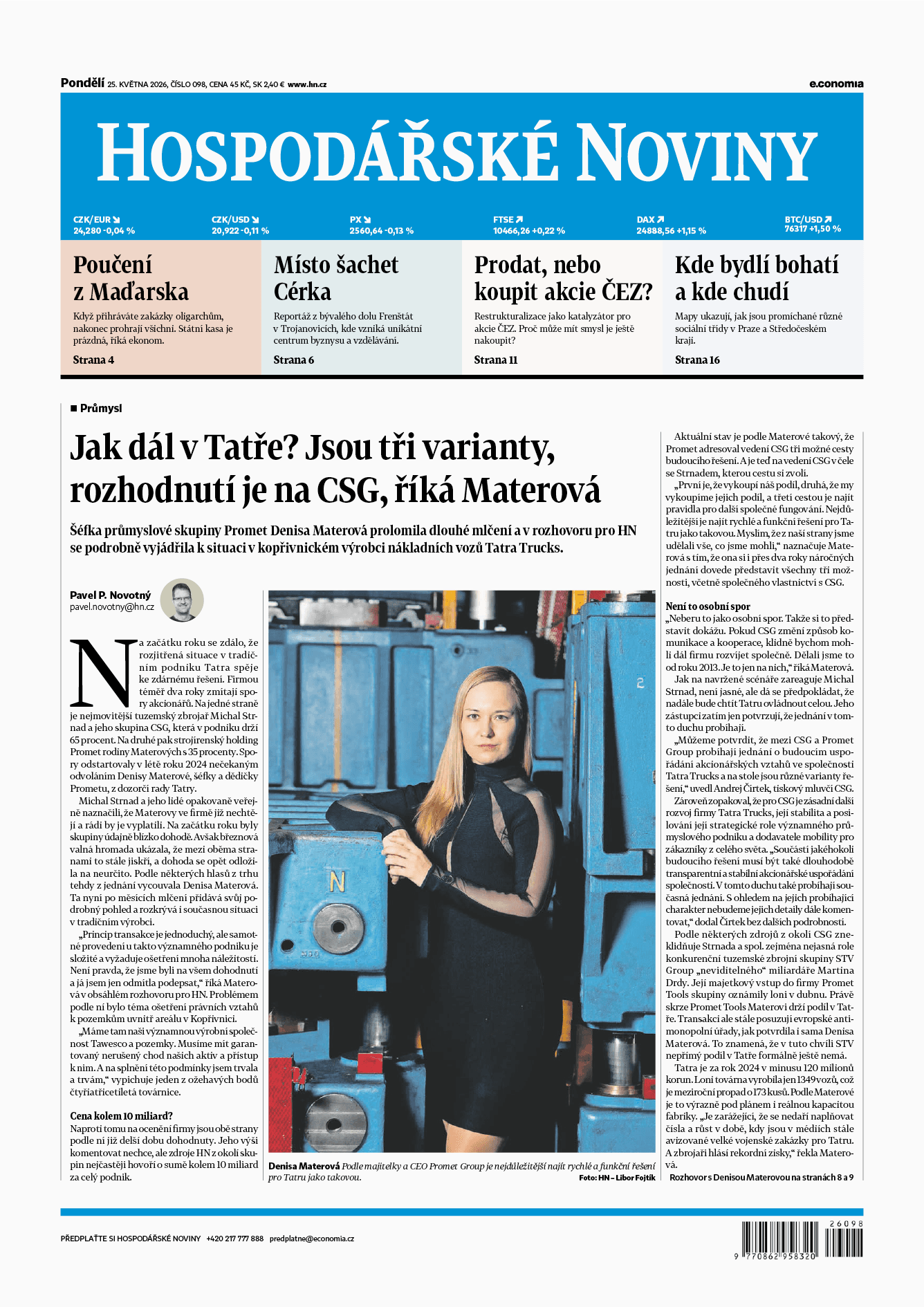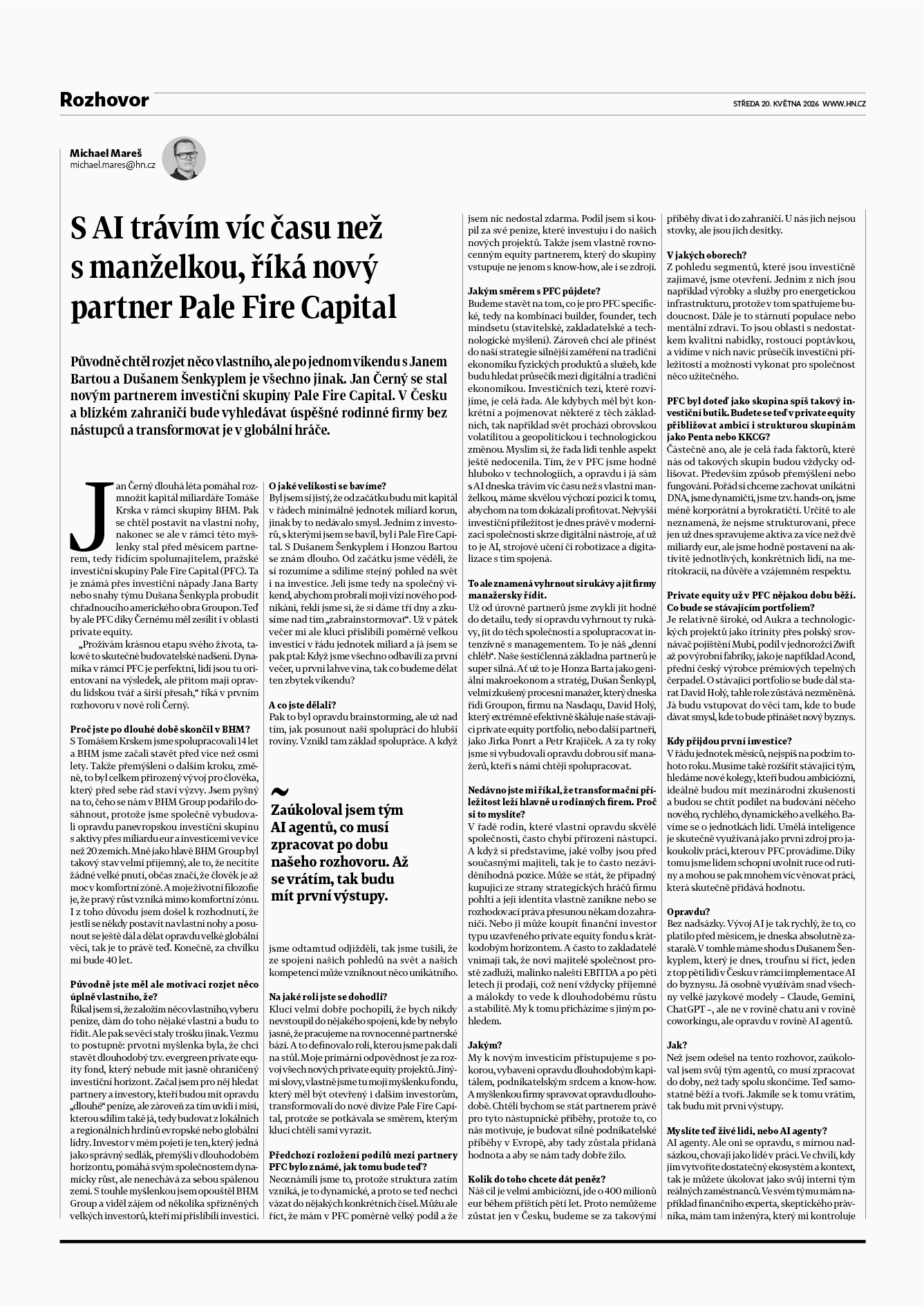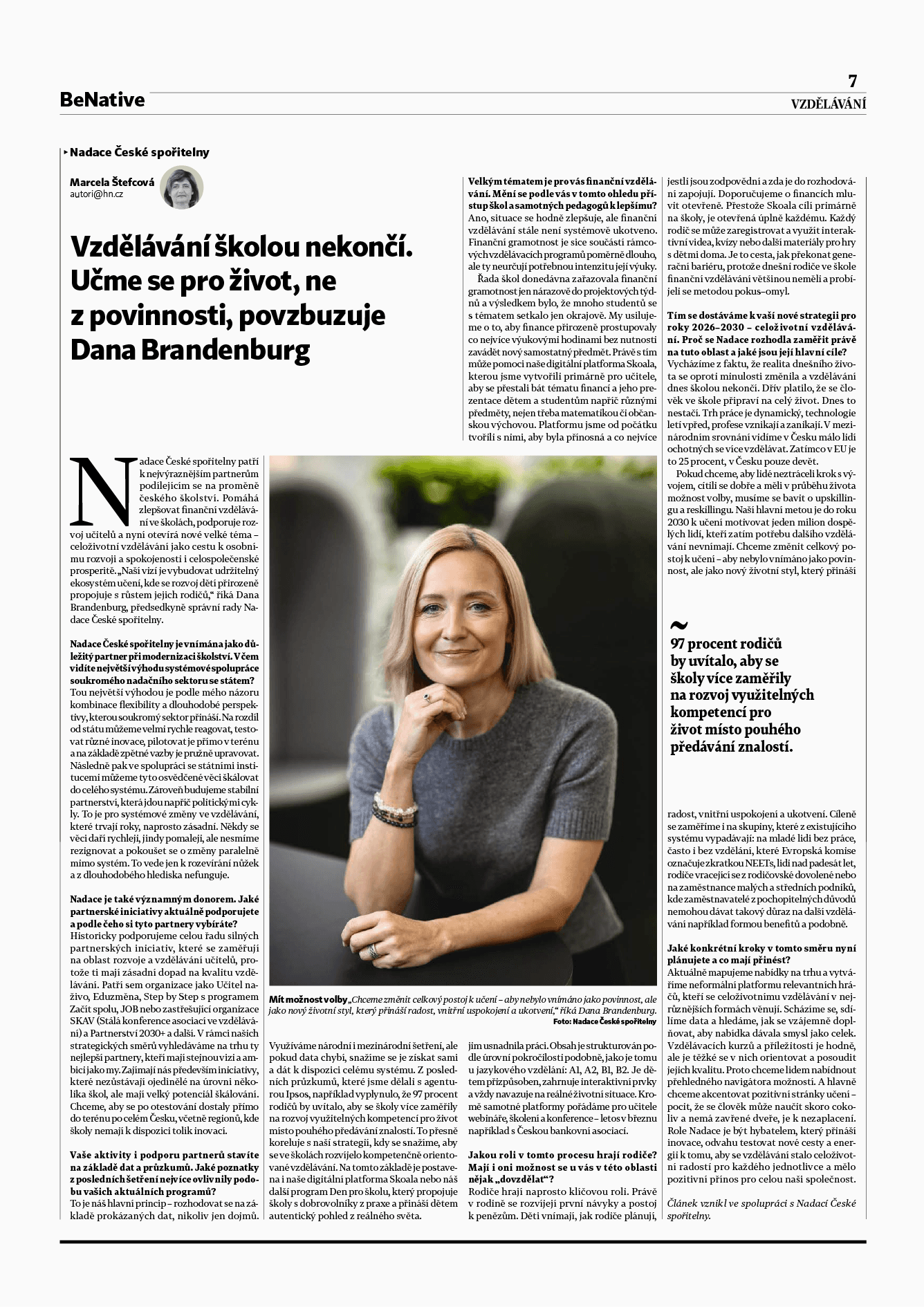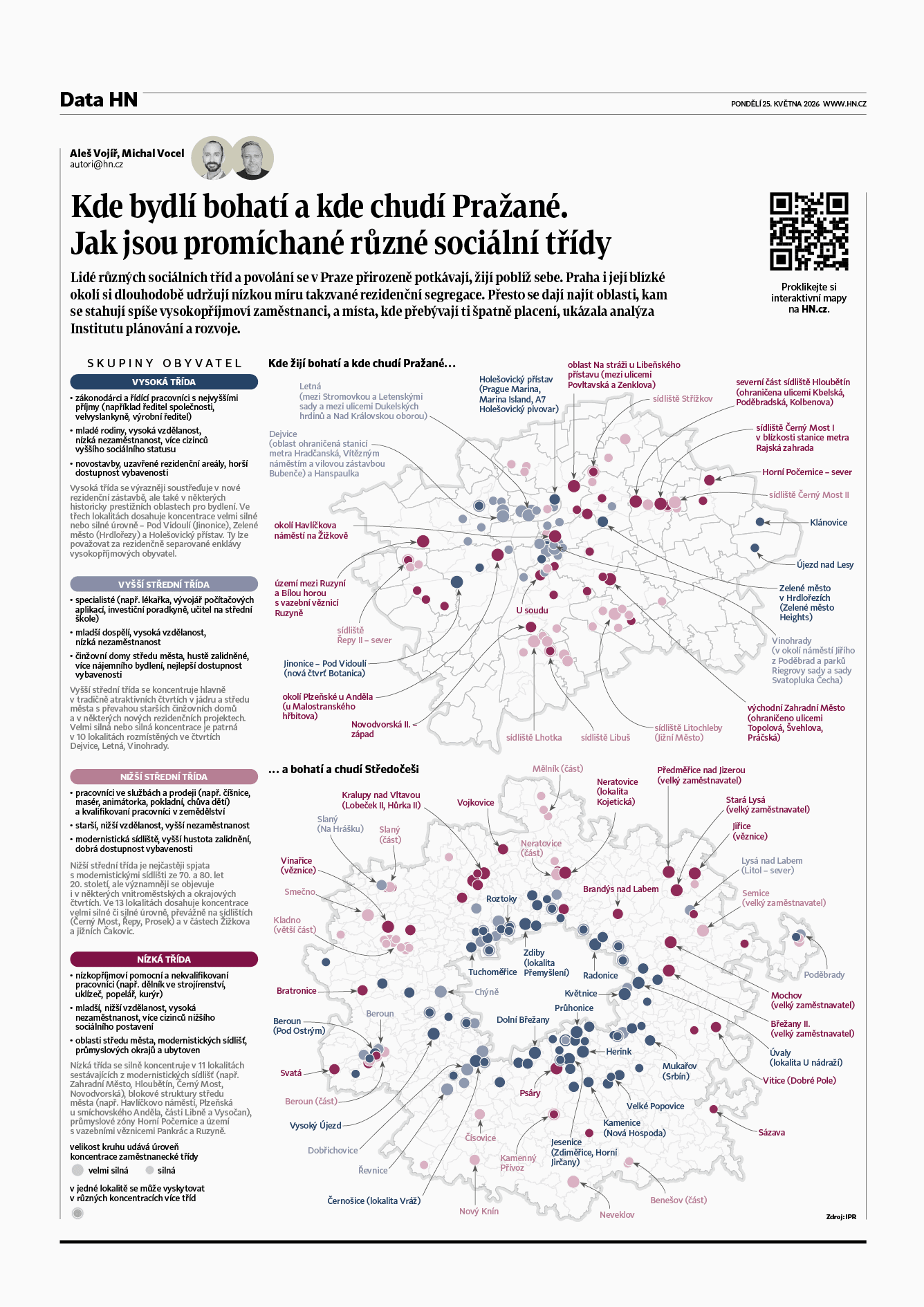
Tabac HN
Hospodářské noviny is a Czech daily newspaper focused on business, politics, finance, and current affairs. It is one of the country’s leading quality news outlets, read mainly by professionals, entrepreneurs, and economically engaged readers.
Based on a modification of the Tabac typeface, two custom condensed styles were developed to meet the demands of economical yet distinctive headline typography. Together with the other Tabac styles, they shape the unmistakable visual identity of this newspaper.